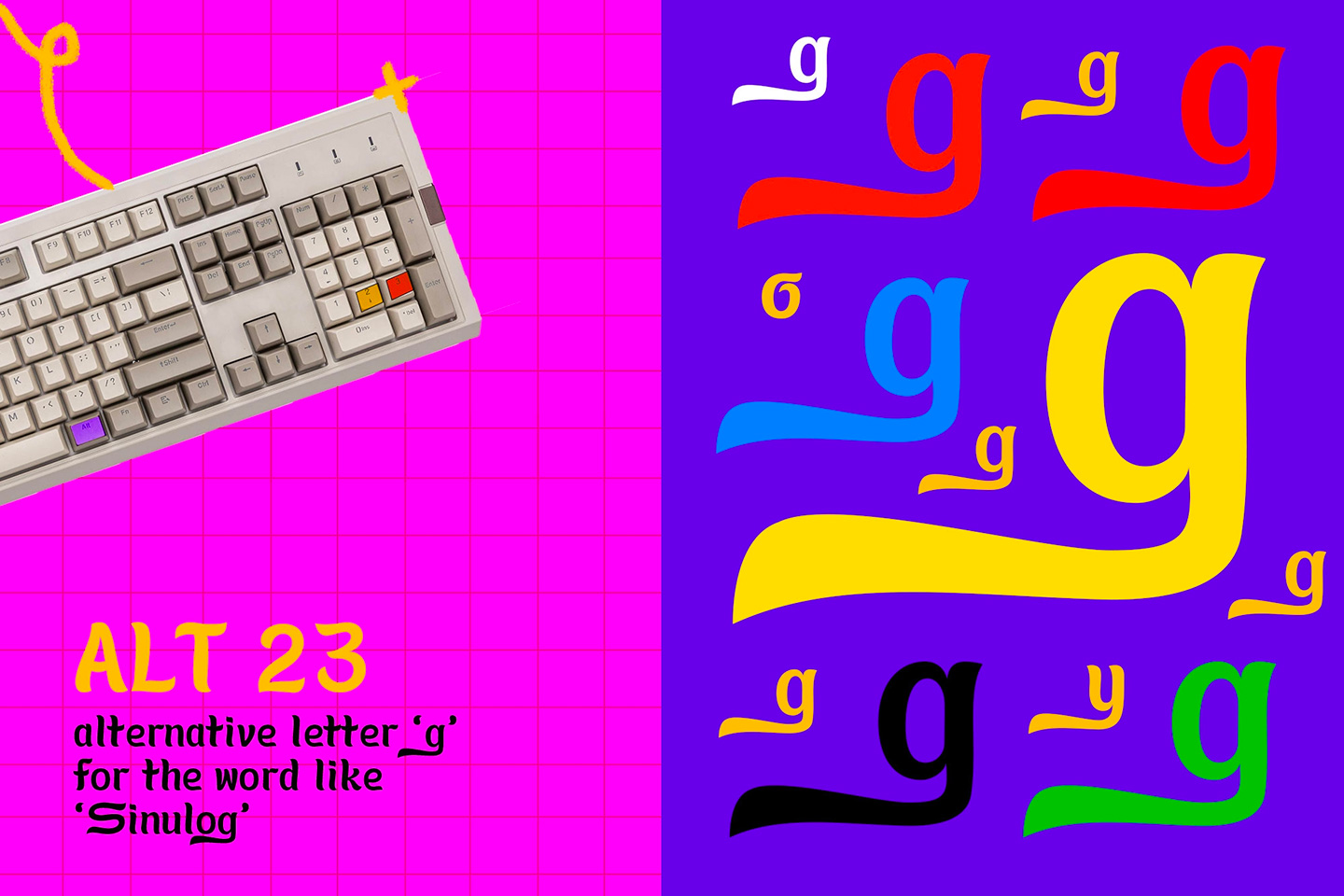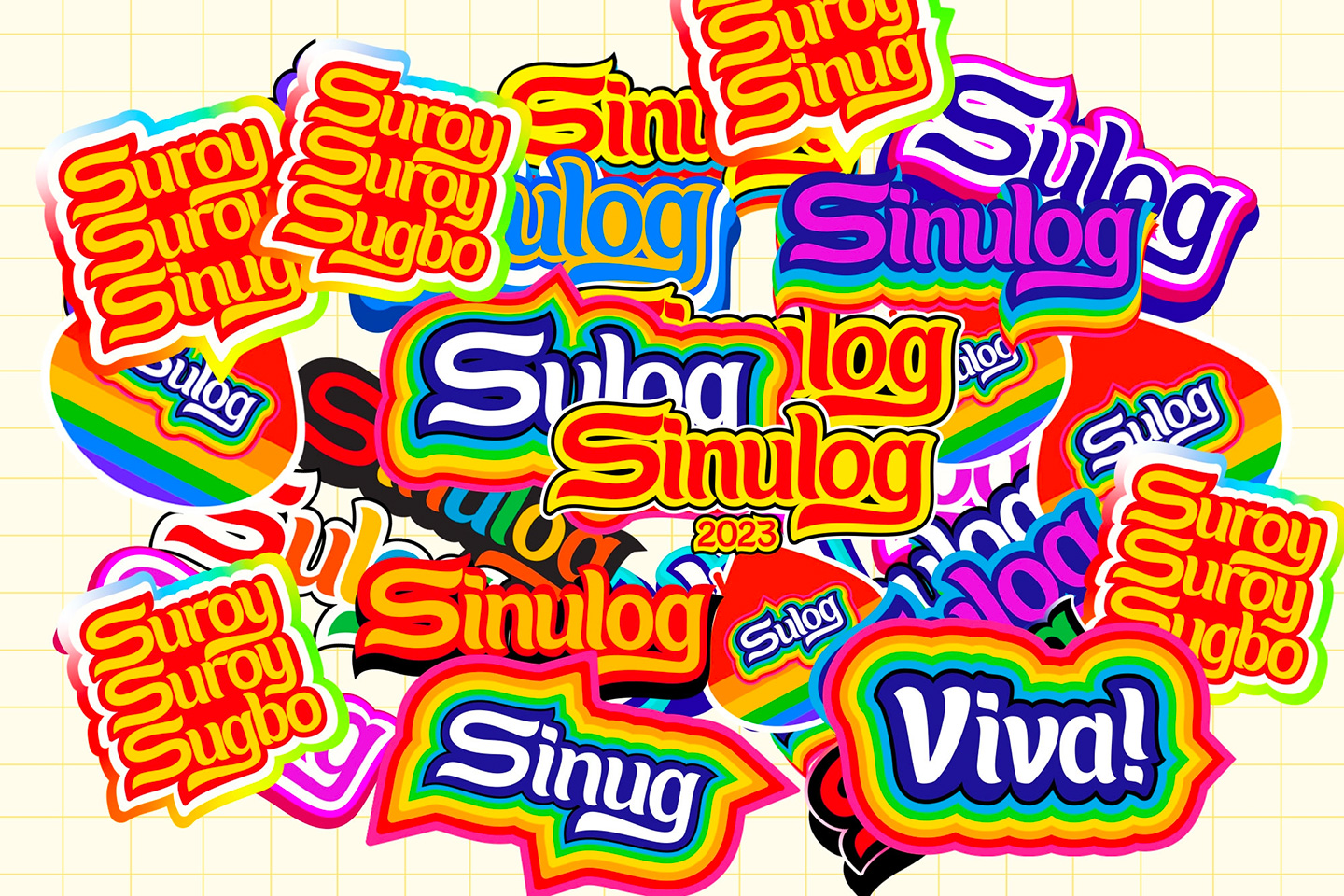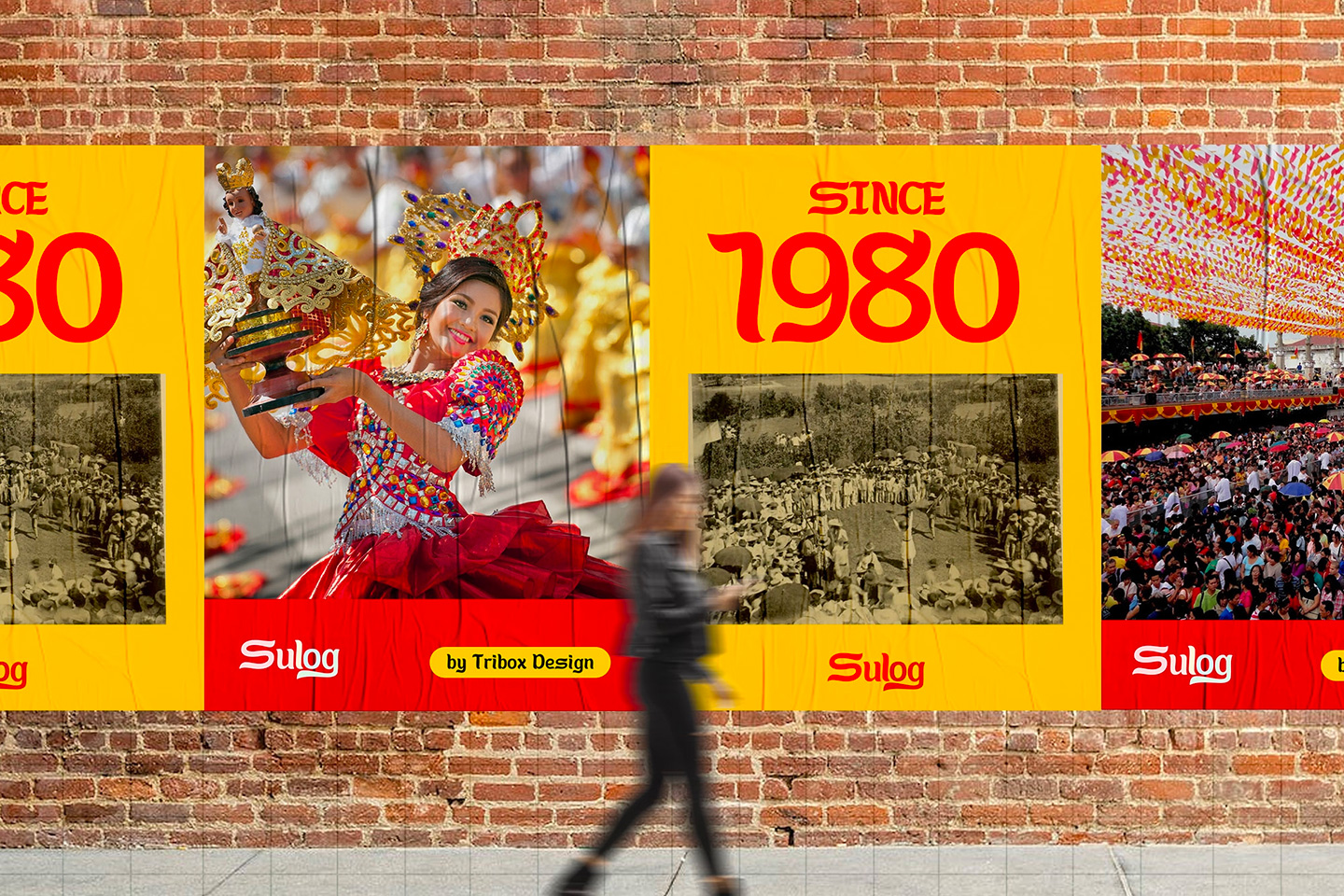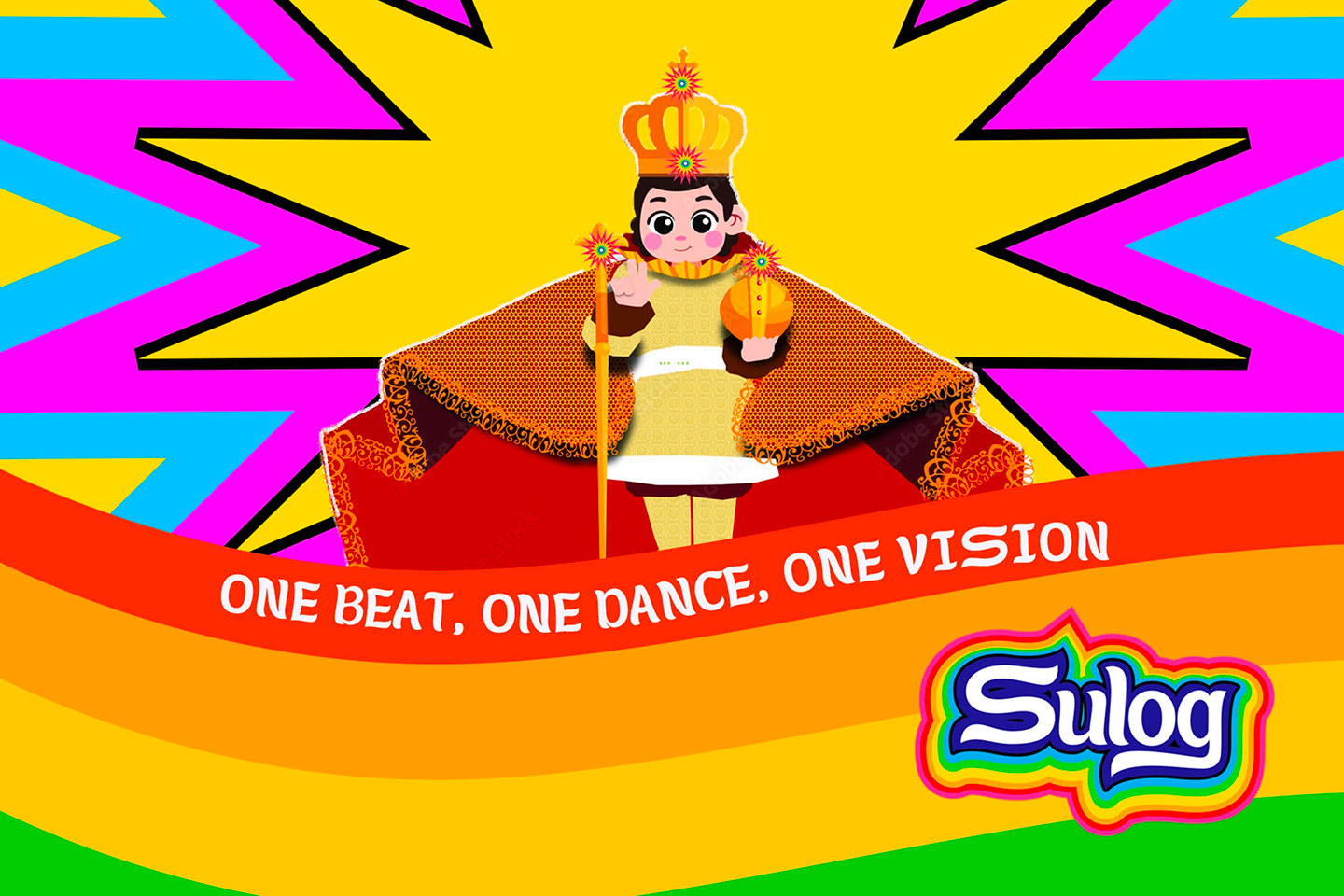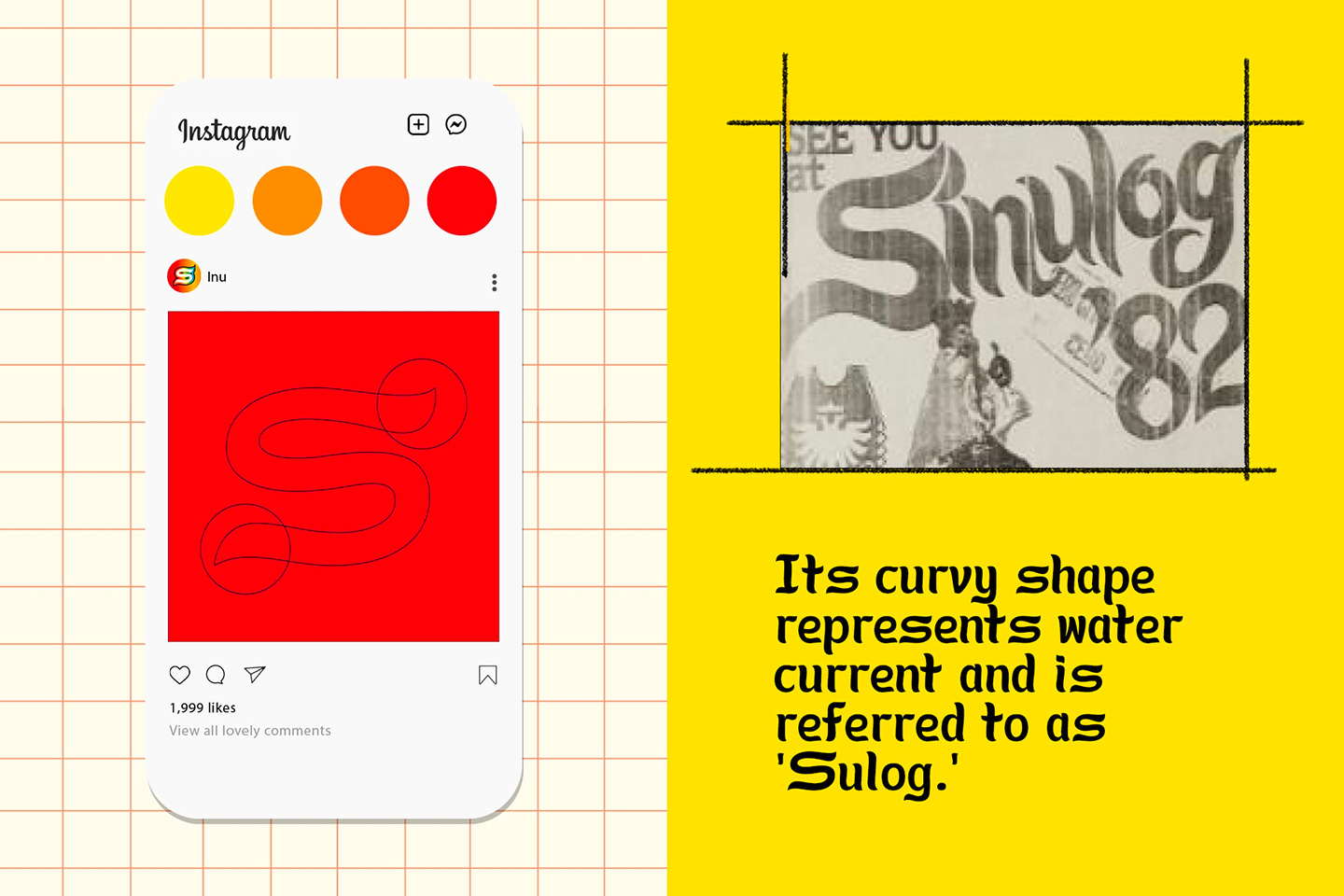
Cebu-based Tribox Design lauds Sinulog Festival with vibrant, fiesta-inspired font
MANILA, PHILIPPINES — Grand, loud, and colorful celebrations are at the core of Filipino culture — which is why the Sinulog Festival leaves its mark as one of the country’s most popular holidays.
The Sinulog Festival is celebrated in honor of the Holy Child, the Santo Niño. During this festival, Cebuanos flood the streets with parades, performers, and devotees holding images and figurines of the Santo Niño.
To help keep the festive spirit of Sinulog, Cebu-based marketing agency Tribox Design has designed a font called “Sulog” — a modern and groovy tribute to the colorful origins of the Fiesta de Señor Santo Niño.
We sat down with Inu Catapusan, Co-founder and Chief Creative Director of Tribox Design, and here’s what we gathered on the inner workings behind the festive font.
The creative process
“One thing Cebuanos have in common is their being ‘mamugnaon’ — being creative individuals. They always want to create their own designs resulting in the use of different kinds of fonts and versions of the Sinulog logo,” Inu shared.
According to Inu, their team realized that despite the appeal of the festival, there seems to be a lack of consistency in terms of the event’s overall design. “We discovered that there is no standard font used since the beginning of the Sinulog Festival — which is a shame since it is such a big event,” he continued.
To solve this problem, Inu and his team went back to the roots of the festival itself. “The first thing we did was gather some of the old Sinulog Celebration logos dating back from the 1980s. Based on the old logos, we created a font system that can be used to standardize designs for local Sinulog fiestas such as Sinulog sa Sugbo, Sinulog sa Talisay, Sinulog sa Mandaue, Sinulog sa Santa Fe, and so on,” Inu said.
“We retained the original structure of the wordmark, the curves that represent resilience, or ‘kalig-on.’ The font has glyphs in upper case, lower case, numbers, and symbols. Each glyph is based on the word ‘Sulog,’ which means the back-and-forth movement of waves. We also added glyphs for the letters ‘g’ and ‘y’ with tails, upper and lowercase ‘ñ’, and the letter ‘o,’” Inu explained.
This led them to name the font “Sulog” — a Cebuano term referring to flows, currents, and wavy movements — the root word of Sinulog itself.
Long live the font
To help launch the font in time for the festival, Tribox Design teamed up with Cebuano creatives such as Cebu Insights PH, Dreamyria, Stevensonnet Art, JEGI Design, and Amabelle Lorraine Piñon, who promoted the font alongside Sinulog-inspired illustrations, photos, and other types of media.
“We created this to honor our beloved Santo Niño, who has endured despite everything,” Inu shared. “We want to help strengthen the Sinulog campaign so that it is more enjoyable and full of life.”